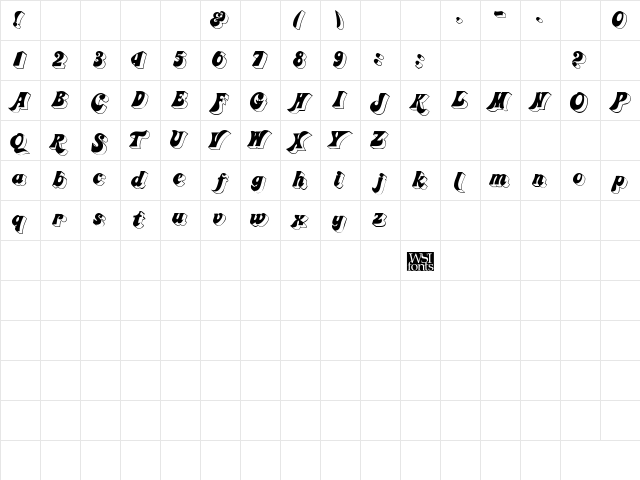
GummyDisplay Italic
Design Context for GummyDisplay Typeface
GummyDisplay is built around its visual character rather than neutral utility — its distinctive forms are designed to make an impression at display sizes. The dynamic lean of this cut emphasises speed and emphasis in any layout.
Font Pairing: Pair with a clean neutral sans-serif for body copy to let GummyDisplay's character lead without overwhelming the composition.
Pro Tip: Treat GummyDisplay as the centrepiece of your typographic hierarchy. One strong heading set in a decorative face can carry an entire layout.